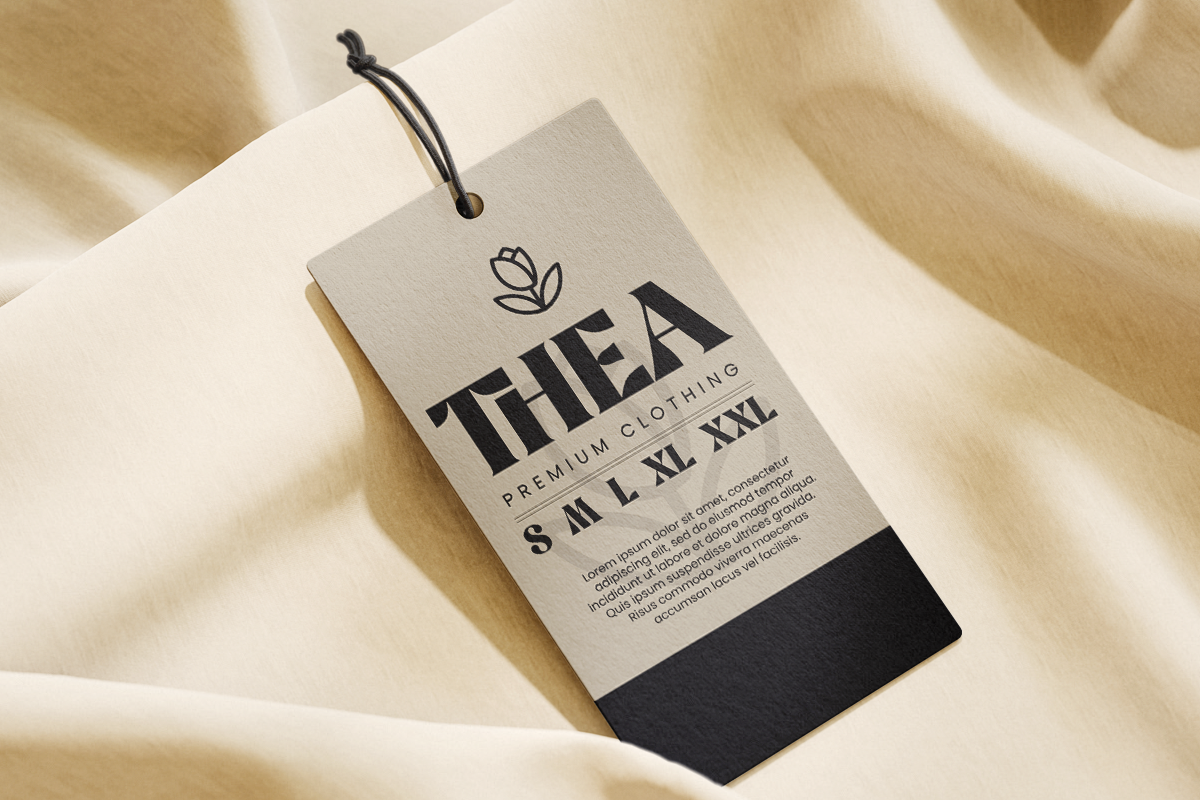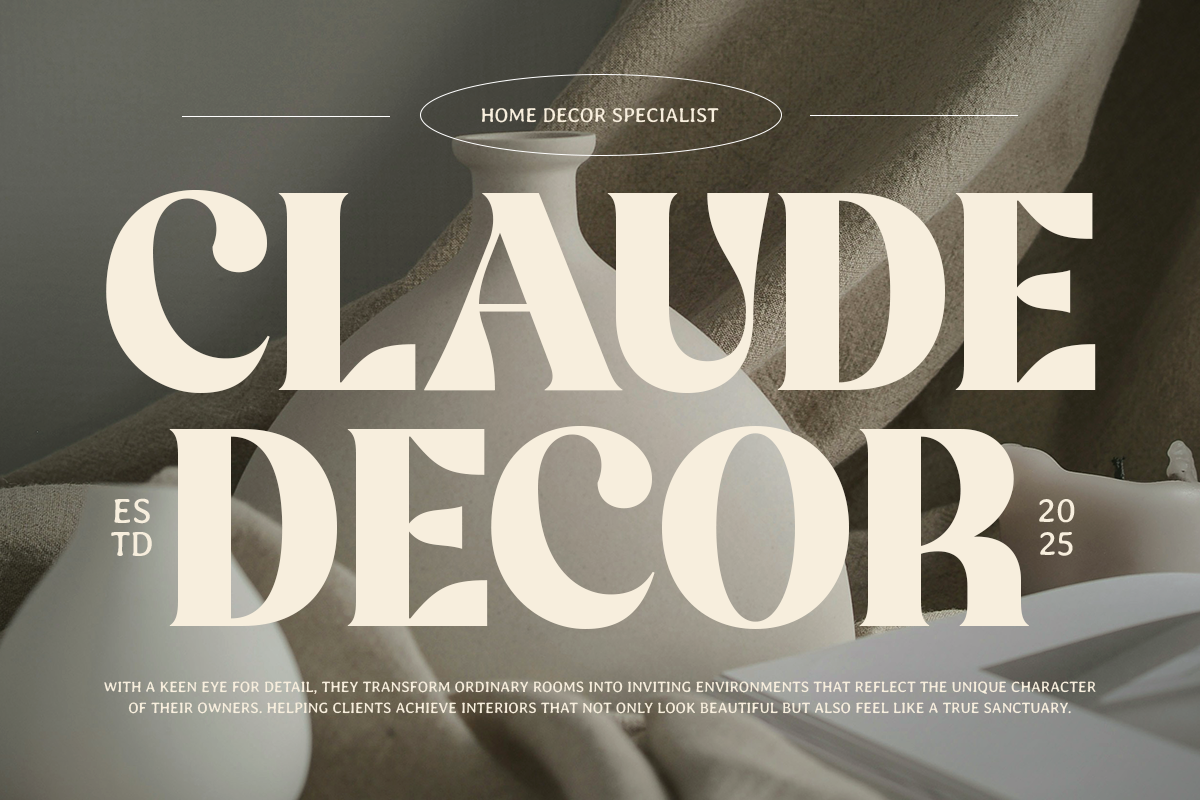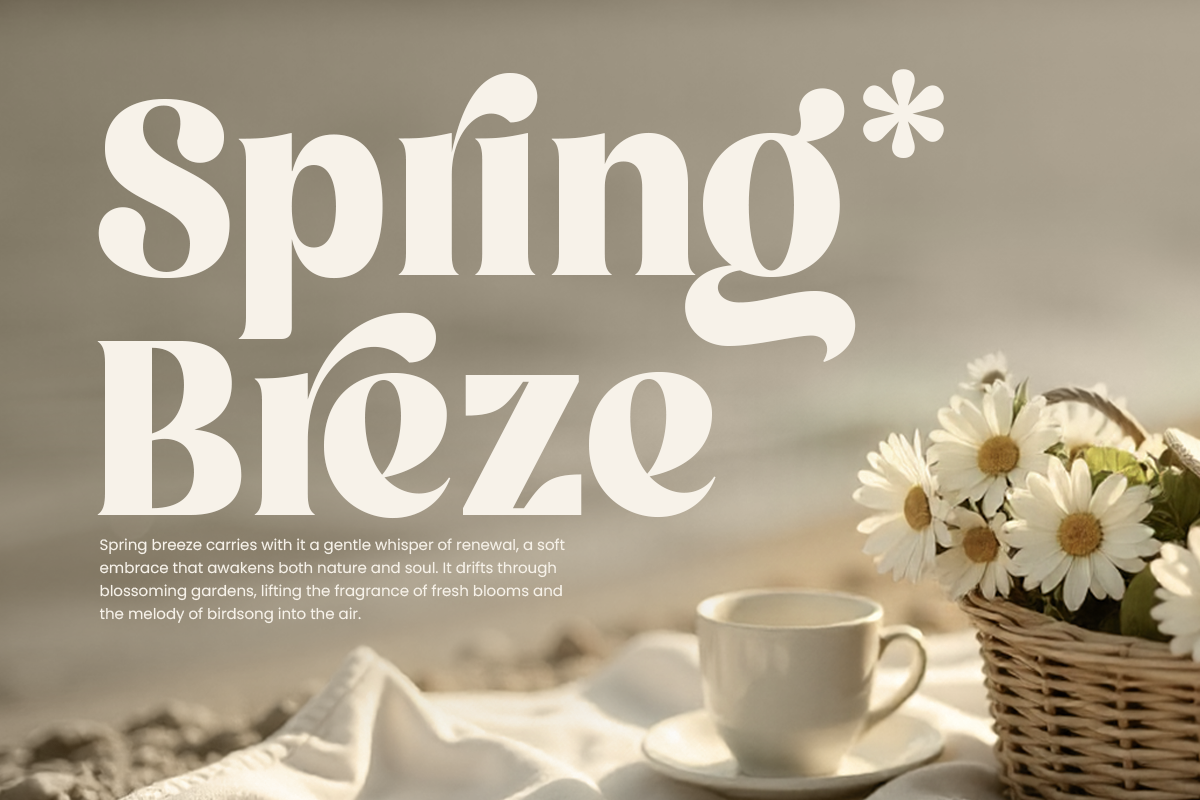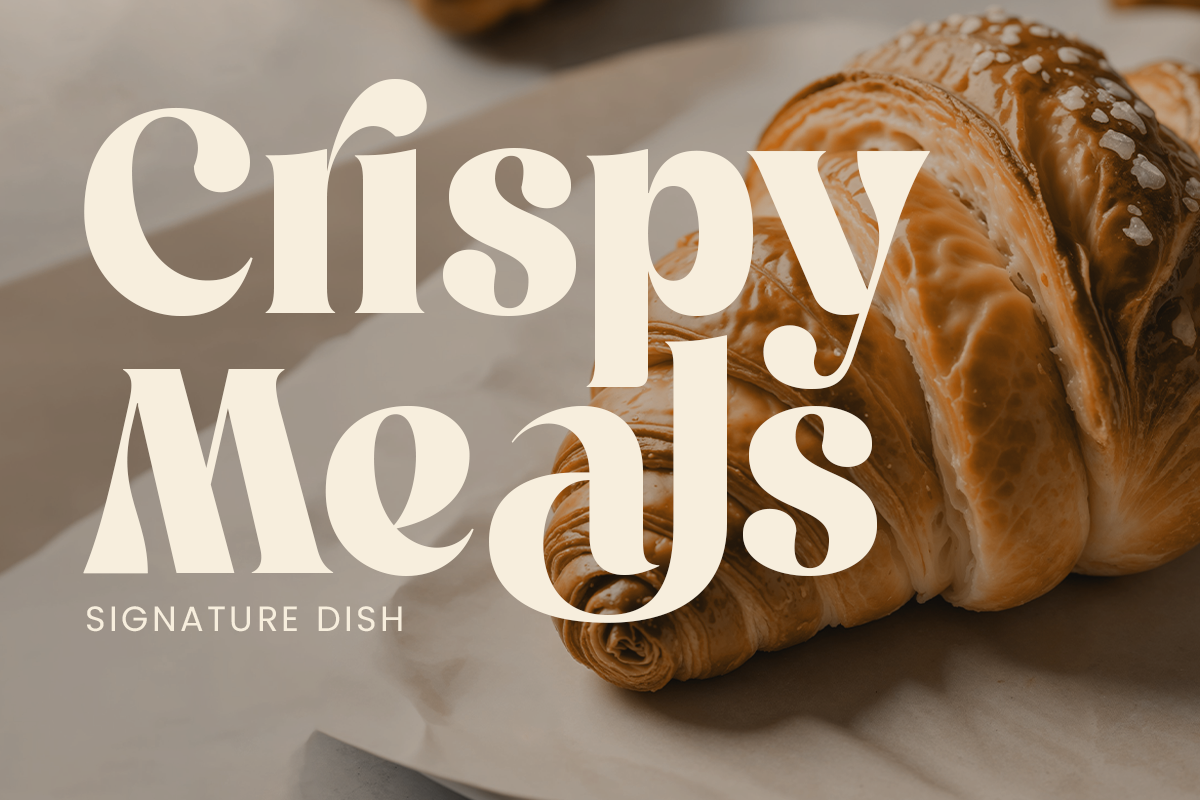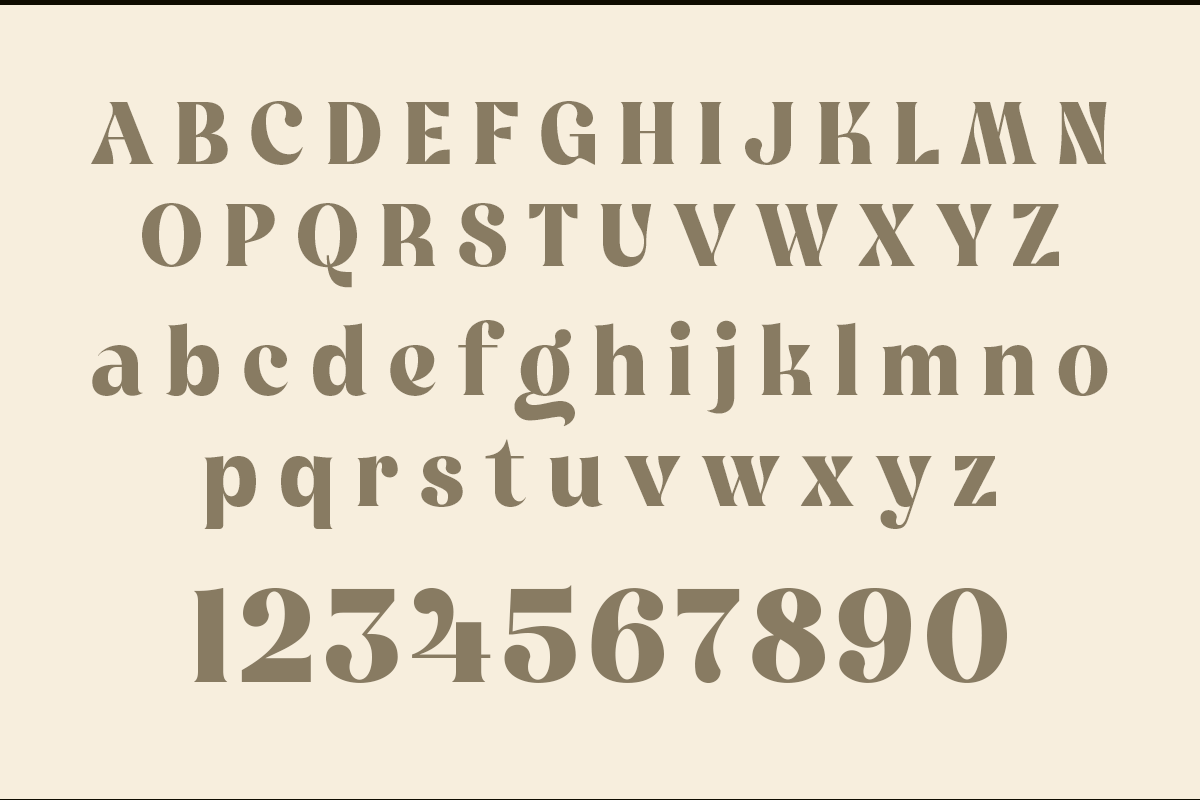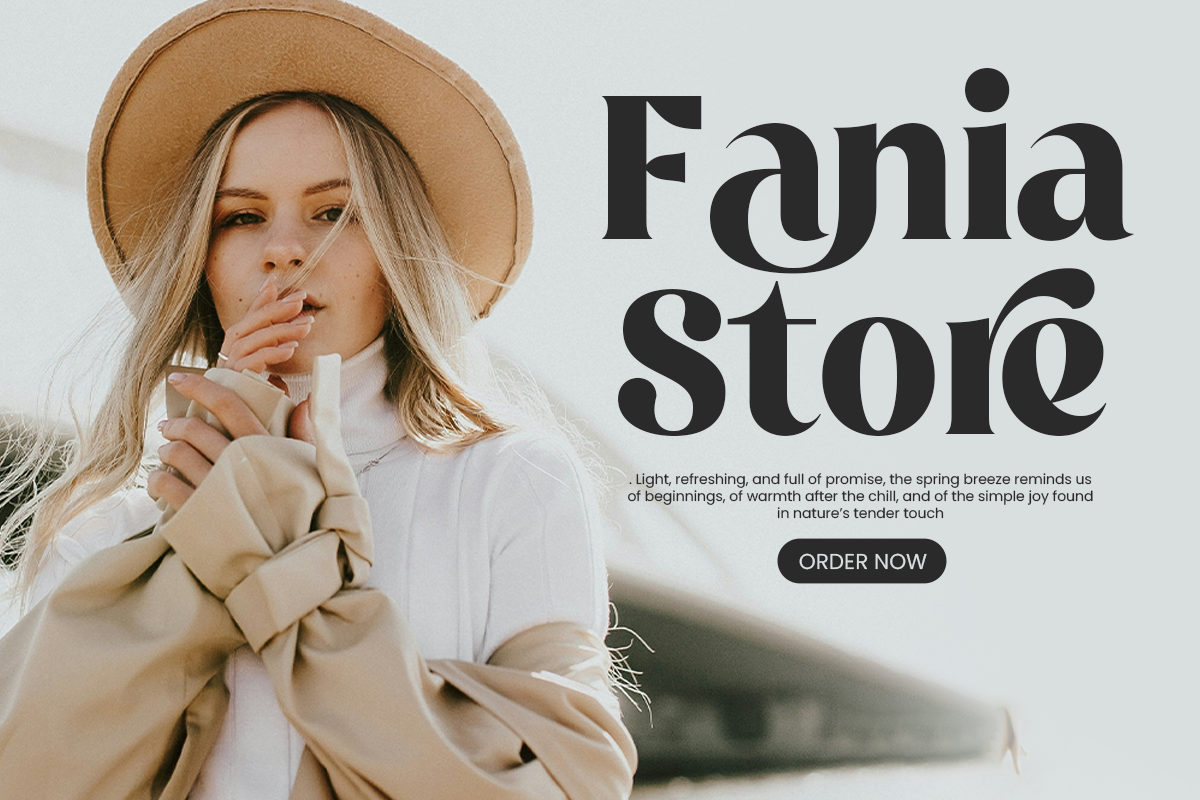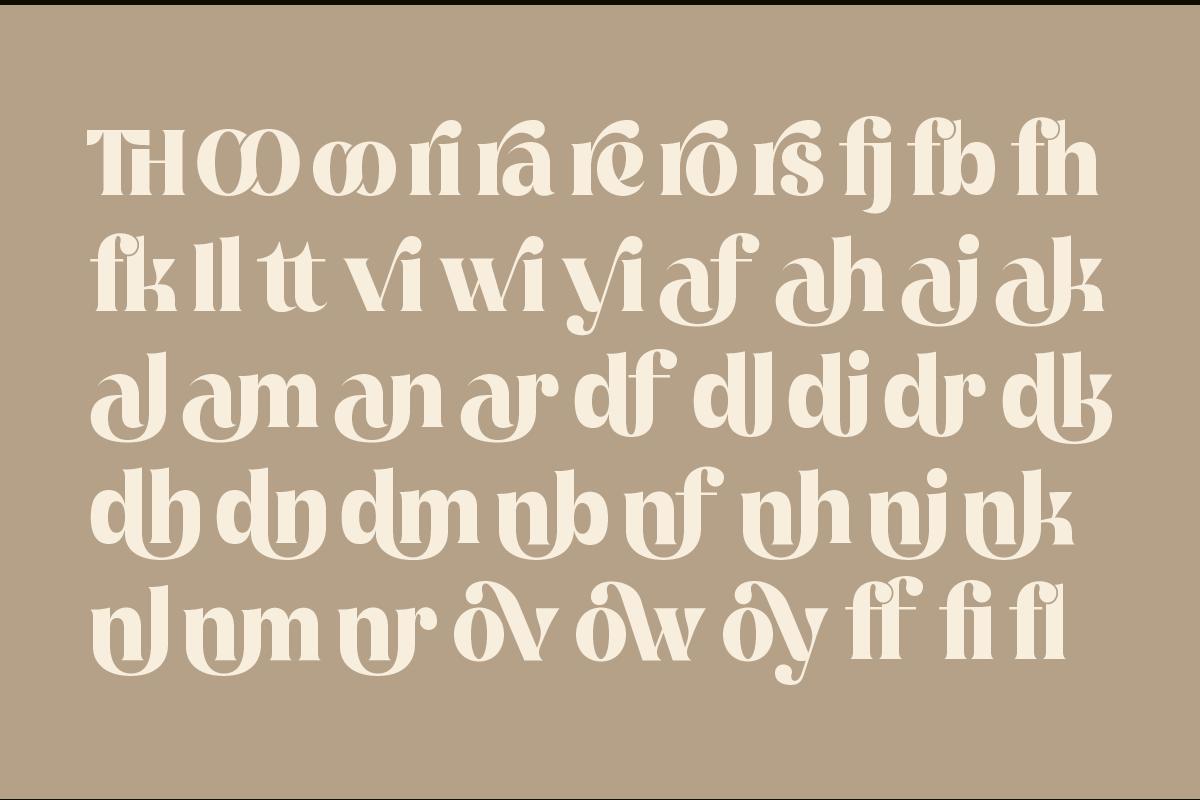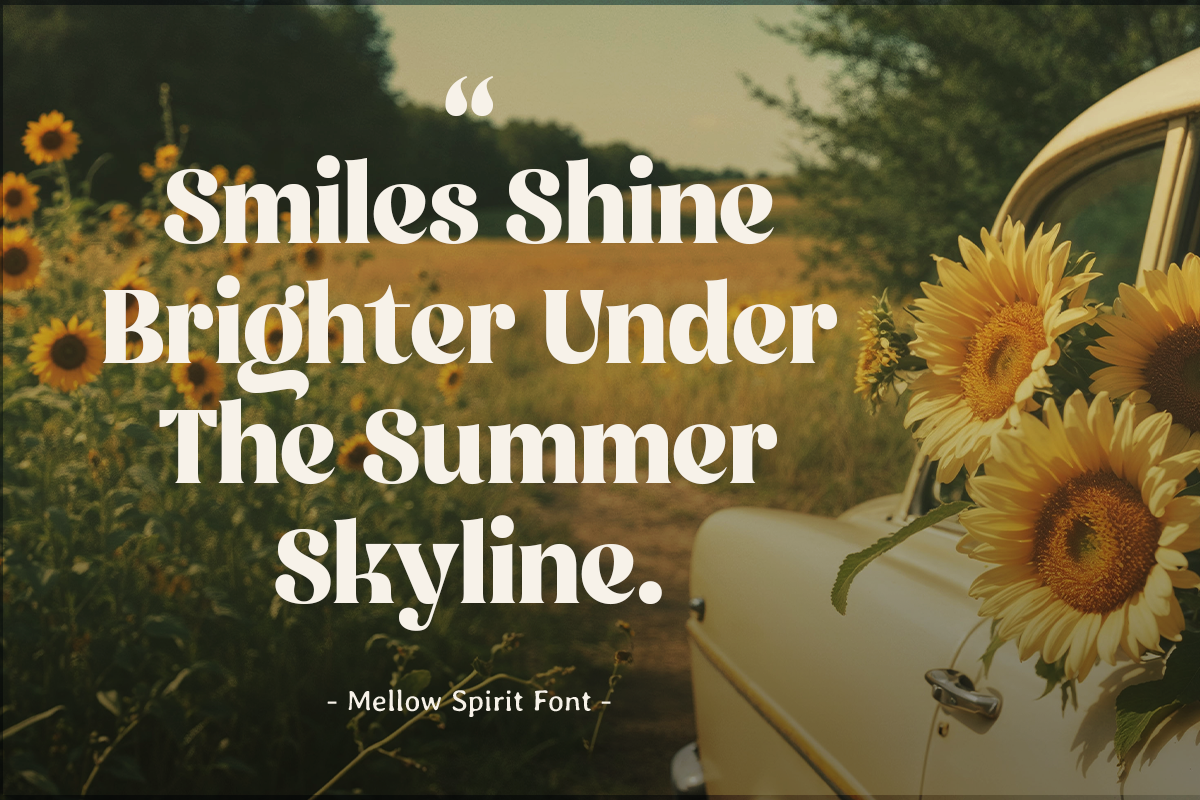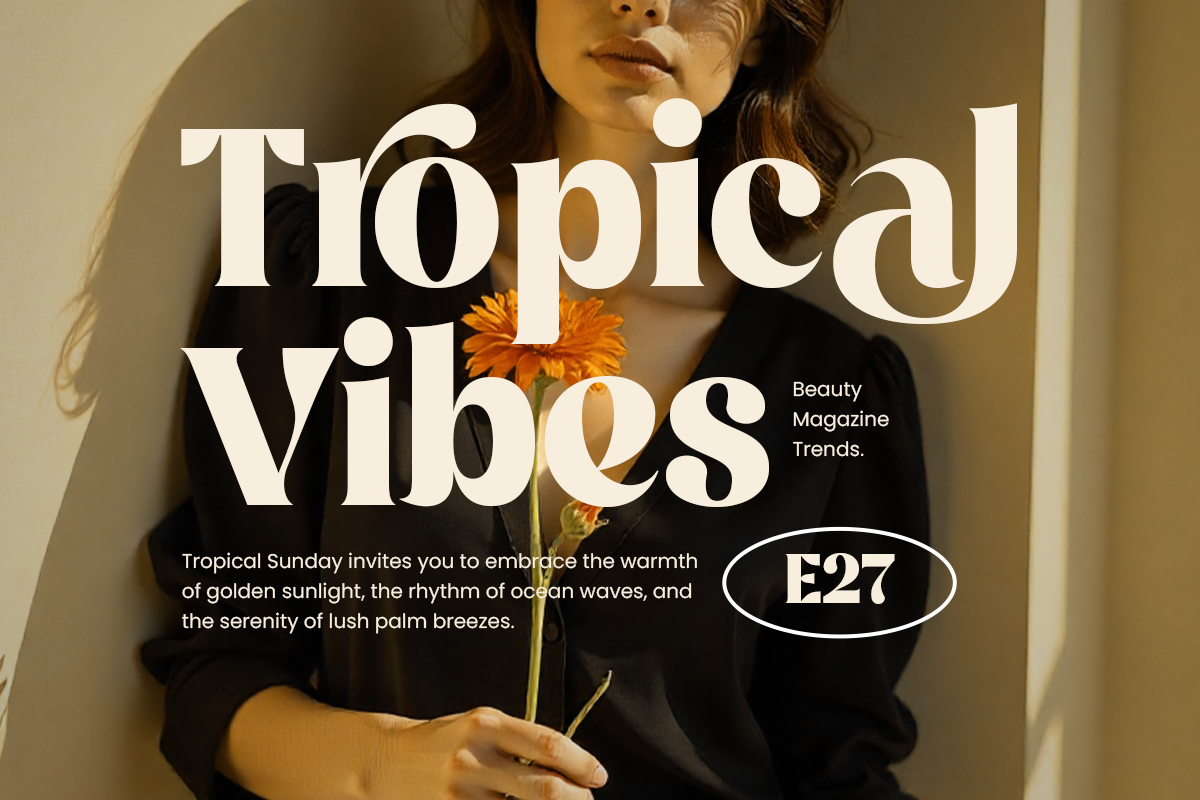
Mellow Spirit - Modern Retro
Mellow Spirit is a retro-inspired display font designed to spark creativity and fun. With its groovy letterforms and modern flair, this font brings back the warmth of the 70s and 80s while keeping your designs fresh and relevant.
Ideal for logos, merchandise, event posters, and lifestyle branding, Mellow Spirit adds a nostalgic yet upbeat vibe that makes your work stand out
- uppercase and lowercase
- numerals and punctuation
- OpenType features (ligatures and alternates)